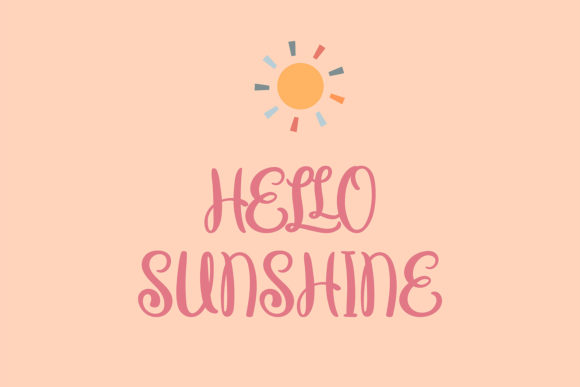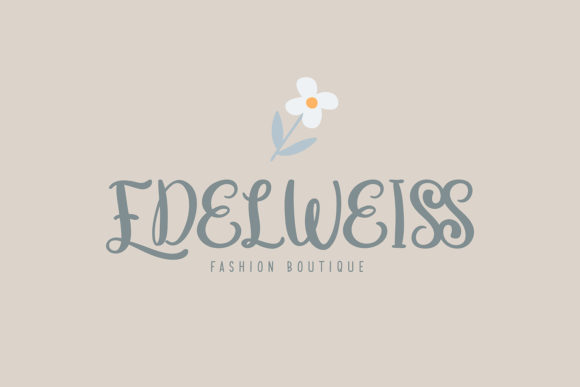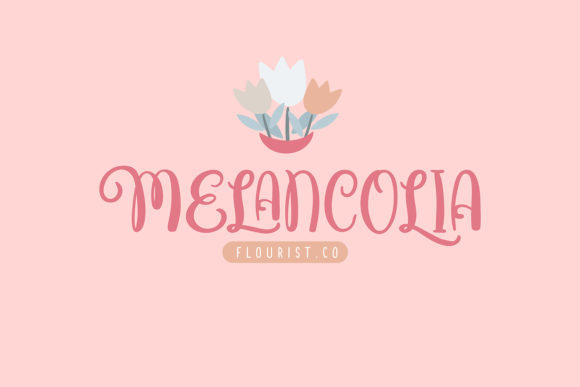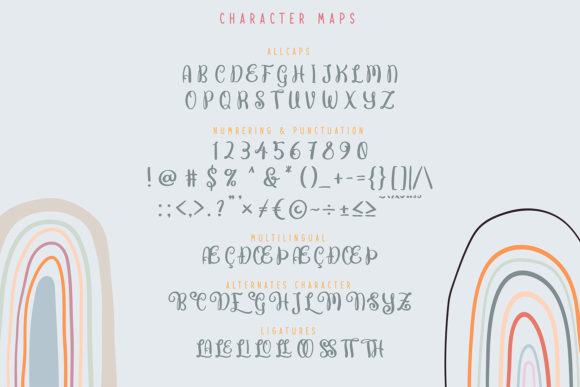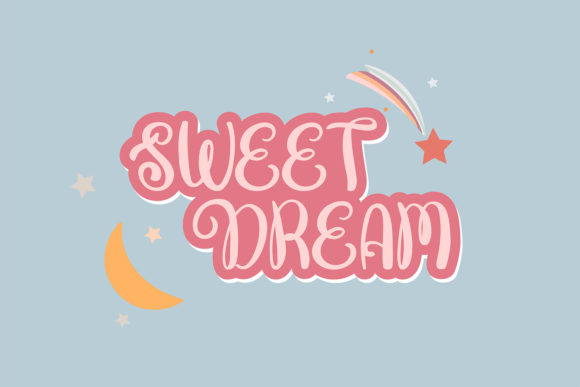
“Butterfly” is an exquisite handwritten font that perfectly balances classic calligraphy with a contemporary twist. Its elegant and sophisticated design makes it a favorite among designers, and it’s perfect for adding a touch of beauty and creativity to various projects. Here are some ideas on how to utilize the charm of the “Butterfly” font to elevate your designs:
1. Wedding Invitations: Use “Butterfly” font to design elegant and romantic wedding invitations, setting the tone for a beautiful and memorable event.
2. Logo Design: Apply the font to create stylish and sophisticated logos for businesses that aim to exude class and creativity.
3. Quote Prints: Craft artistic quote prints with “Butterfly” font, making inspirational messages stand out with its graceful and flowing appearance.
4. Greeting Cards: Design heartfelt greeting cards using the font, adding a personal and elegant touch to your well-wishes.
5. Product Packaging: Utilize “Butterfly” font in product packaging for luxury and high-end items, elevating the overall presentation.
6. Stationery and Letterheads: Create personalized stationery sets and letterheads with the font, making each written note a work of art.
7. Event Signage: Use the font in event signage and banners for upscale events, creating an atmosphere of sophistication and refinement.
8. Fashion and Beauty Branding: Apply the font to branding materials for fashion and beauty companies, projecting elegance and creativity.
9. Book Covers: Design captivating book covers with “Butterfly” font for novels, enhancing the allure and appeal of the literary work.
10. Artistic Prints: Craft art prints featuring elegant typography with the font, making a stunning addition to home and office decor.
11. Social Media Graphics: Use “Butterfly” font in social media graphics to add a touch of sophistication to your posts and stories.
12. Restaurant Menus: Apply the font to design menus for upscale restaurants, giving them a touch of elegance and refinement.
With “Butterfly” font’s exceptional design and calligraphic influences, it effortlessly enhances the beauty of any project. Its versatility and timeless appeal make it a delightful choice for a wide range of creative endeavors, allowing you to create designs that are truly enchanting and inspiring.